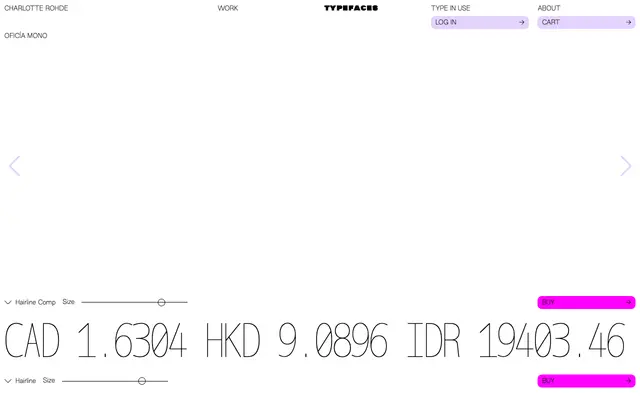
Oficía Mono
A monospaced family from Charlotte Rohde in eight styles, pairing standard and condensed widths across Hairline, Light, Regular and Bold weights.
Eight styles cover standard and compressed widths at four weights from Hairline through Bold, making the family adaptable for both text-dense interfaces and display use. Glyph coverage runs across Latin Extended and Latin Extended Additional, with stylistic sets offering alternate umlaut and diacritic forms. The specimen leans heavily on financial data, currency symbols and German copy, suggesting a natural fit for editorial and data contexts.
A monospaced typeface with condensed and standard width variants across a range of weights, fitting squarely in the mono category with its fixed-width structure and sans-serif letterforms.